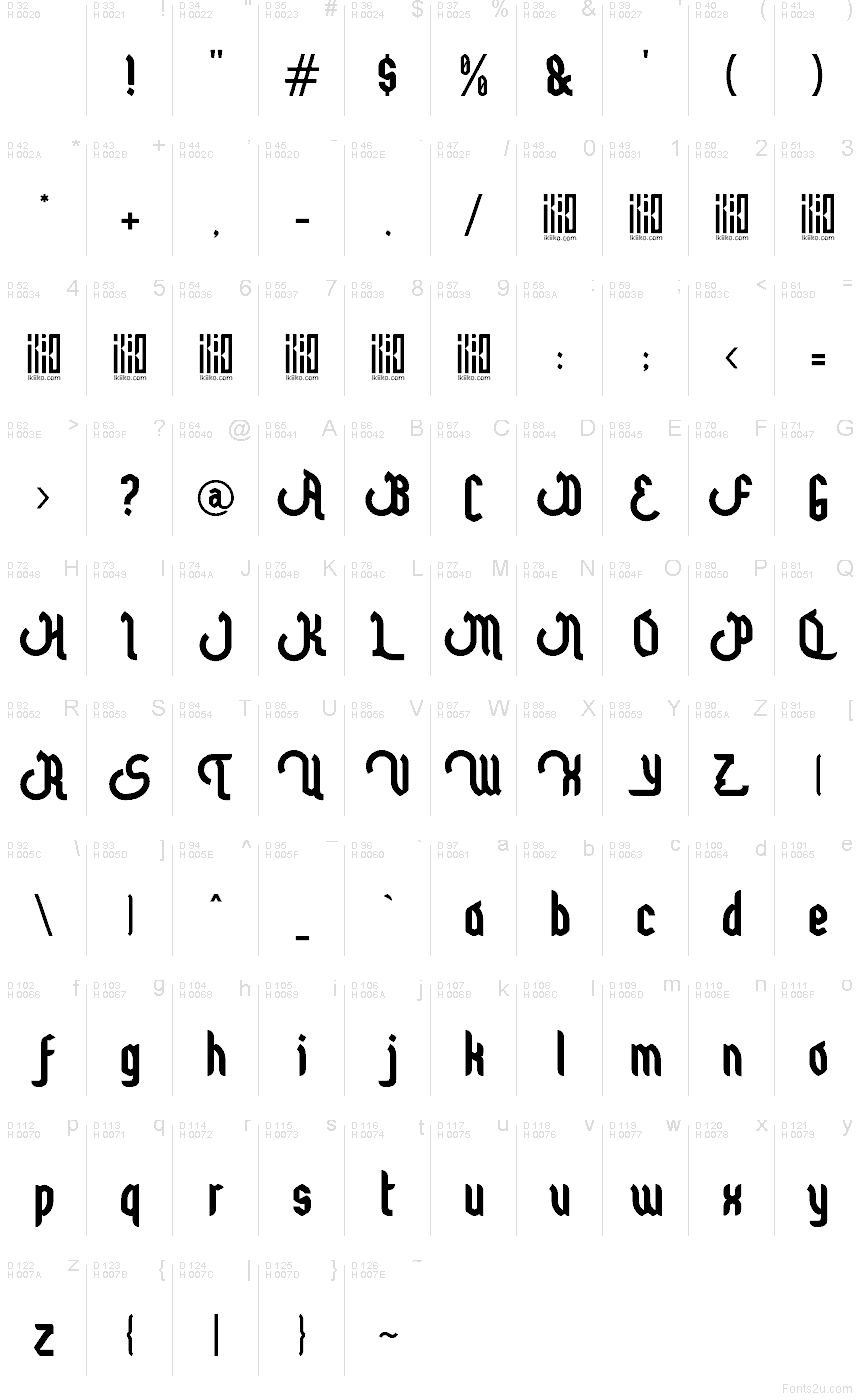
Seribu Bulan ikiiko.com
Seribu Bulan font by Ikiiko Type is a free foreign decorative typeface with a bold faux-Arabic flavor. Its inky, flowing strokes curve into sharp notches and hooked endings, giving Latin letters a strong hint of Middle Eastern calligraphy while staying easy to read. The rhythm feels like a hand-painted sign on an old bazaar stall—solid, slightly compact, and full of character that instantly sets a scene.
Using Seribu Bulan, you can give restaurant logos, street-food branding, festival posters, tea or spice packaging, event invitations, and themed social media graphics a rich, atmospheric touch. The consistent weight and tight, sculpted forms hold up well at larger sizes where the curves can really breathe. This free font pairs well with a plain geometric sans-serif for supporting text, letting Seribu Bulan handle the mood-setting headlines.